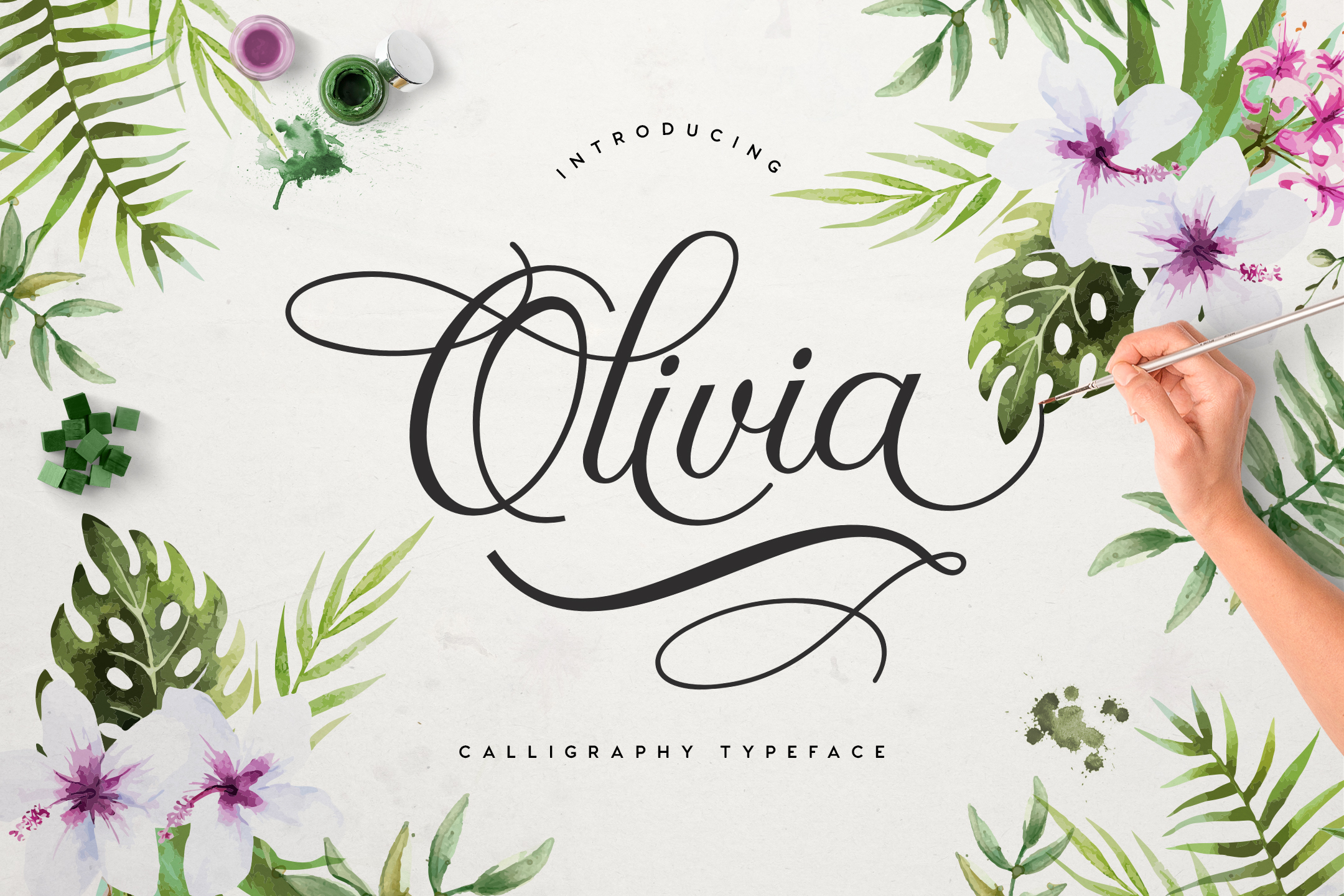
Olivia Script Font
A modern calligraphy typeface, Olivia is both sophisticated and graceful and is an exclusive from The Font Bundles Store.
Complete with 351 glyphs, you can use this font for multiple purposes such as Wedding Invitations, Greeting Cards, posters, wall hangings, gifts and much much more.
| Classification: | Calligraphy Fonts, Script Fonts |